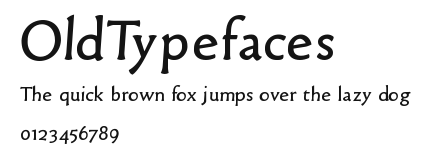
OldTypefaces Preview
About OldTypefaces.ttf
OldTypefaces.ttf is a modern, elegant sans-serif font designed for ultimate readability and visual harmony. Perfect for branding, headlines, web design, and print materials.